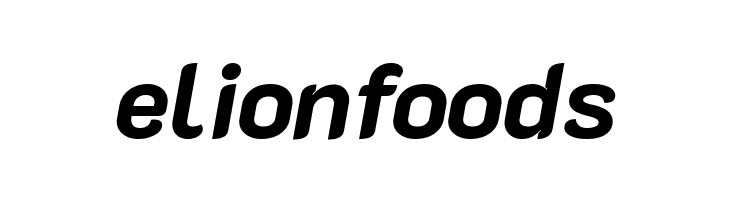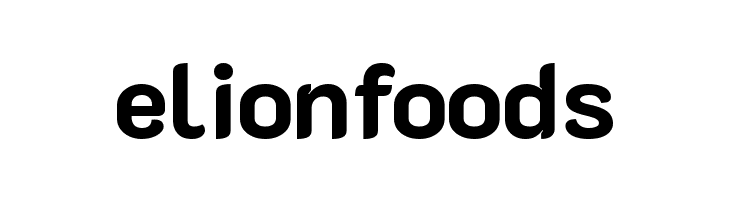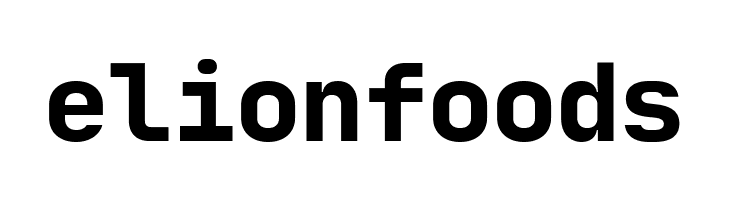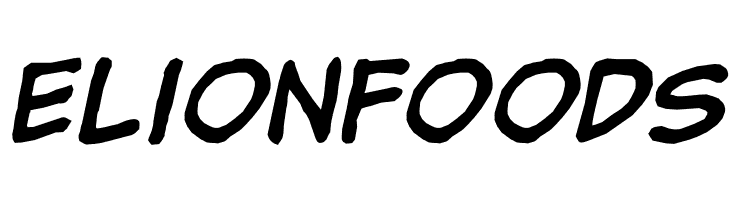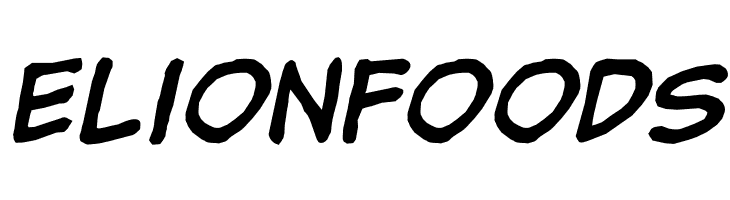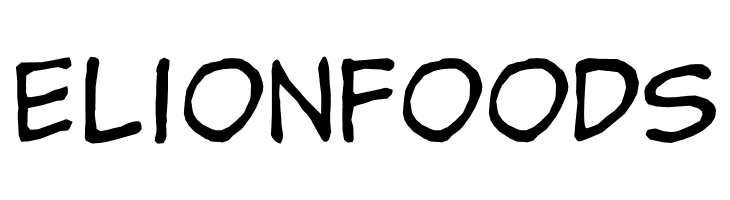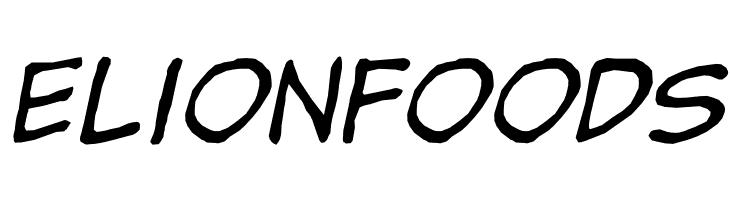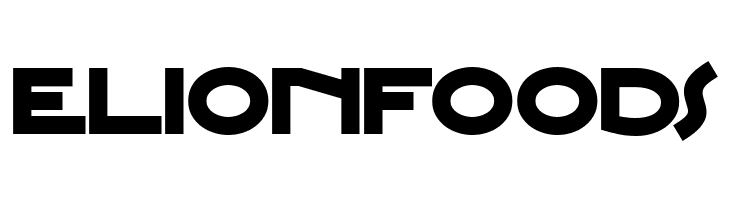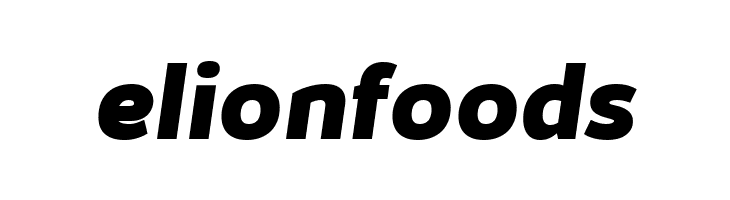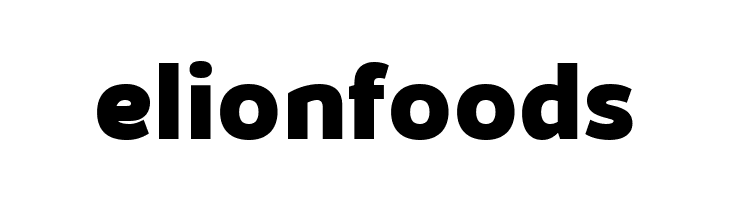
• JetBrains Mono Extra Bold
A bold, monospaced font ideal for coding with clear, geometric characters.
• jibbajabba
A playful, handwritten font with bold, rounded strokes and a lively, informal style.
• jibbajabba Bold
A bold, playful handwritten font with a dynamic and friendly style.
• jibbajabba ExtraBold Italic
A bold, italicized handwritten font with a playful and dynamic style.
• jibbajabba Italic
A bold, italicized handwritten font with a dynamic and casual style.
• JunebugStompNF ExtraBold
A bold, geometric font with sharp angles and a modern style.
• K2D ExtraBold
A bold, modern sans-serif font with clean, geometric letterforms.
• K2D ExtraBold Italic
A bold, italic typeface with a dynamic and modern style.
• Kabrio-ExtraBold
A bold, modern typeface with strong, uniform strokes and a slightly condensed width.
• Kabrio-ExtraBoldItalic
A bold, italicized typeface with thick strokes and a dynamic slant.